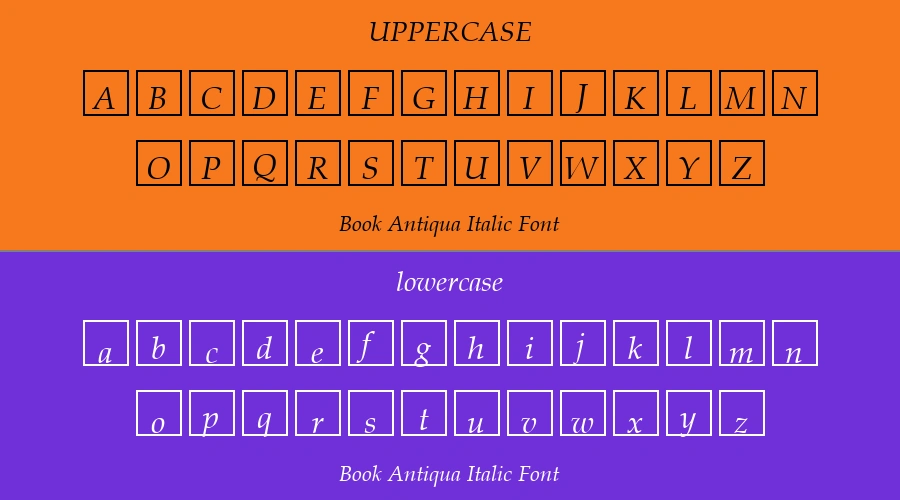
About Book Antiqua Italic Font
Book Antiqua Italic Font represents a sophisticated approach to type design, balancing organic forms with clarity. Perfect for legal documents, this font family showcases impressive versatility and creative excellence throughout its character set. Designers appreciate its versatility and reliability.
Designers will appreciate nuanced touches including hairline details and historical accuracy, adding sophistication to any project. These features become apparent in hero imagery, where scanning accuracy matters most. The careful treatment of curve radius and technical innovation ensures optimal performance.